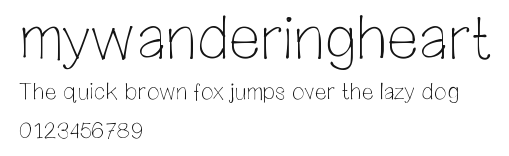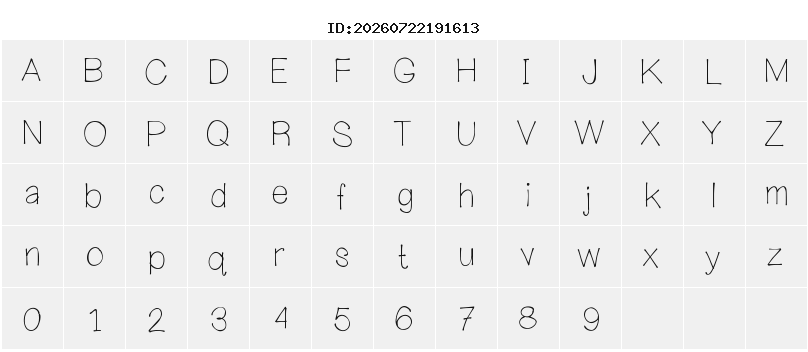
• Font Name: mywanderingheart
• Full Font Name: mywanderingheart
About mywanderingheart.ttf
mywanderingheart.ttf is a modern, elegant sans-serif font designed for ultimate readability and visual harmony. Perfect for branding, headlines, web design, and print materials.